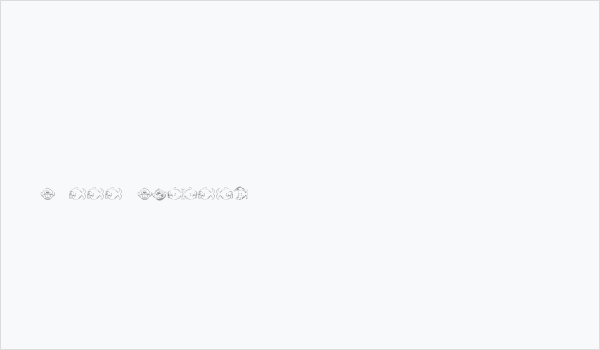
Dopefish Font
Dopefish Description
A playful and whimsical decorative font where each character is represented by a cartoonish fish or aquatic creature, each with distinct facial expressions and features, giving a hand-drawn, comic-like appearance.
| Overall Style | Playful, Whimsical, Decorative |
| Use Case | Logos, Headlines, Posters, Themed graphics |
| Proposed Projects | ChildrenΓ’β¬β’s books, party invitations, aquatic-themed posters, playful branding, educational materials. |